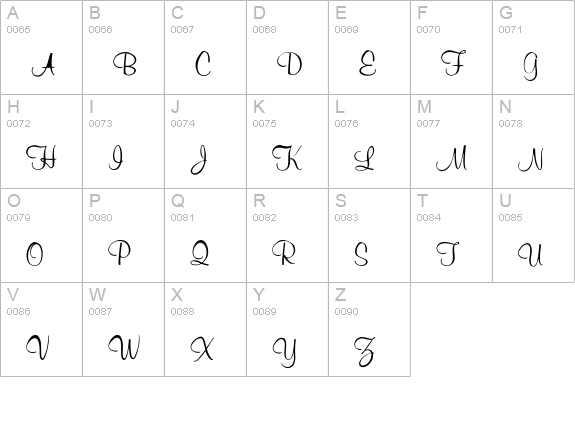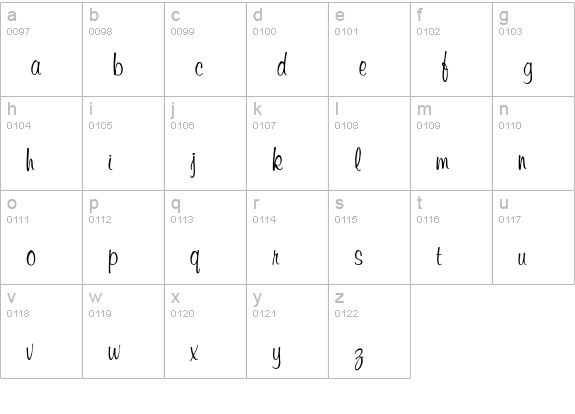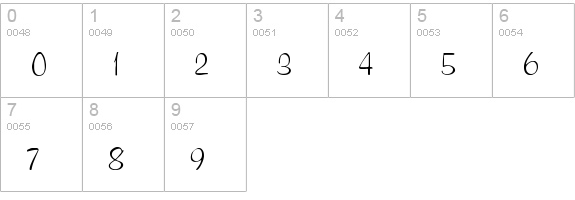
Muriel Font Details
Muriel font is a stunning and elegant typeface that exudes sophistication and charm. Its timeless design makes it perfect for a wide range of projects, from branding to editorial design. The fluid and graceful letterforms of Muriel font bring a touch of class to any text, making it a versatile choice for both print and digital applications. What sets Muriel font apart is that it is not only visually appealing but also freely available to download at FontsMarket.com. This means that you can easily access this beautiful typeface without any cost, making it a valuable addition to your font library. Whether you're a designer looking for a new go-to font or a business owner in need of a stylish branding solution, Muriel font is sure to impress with its timeless beauty and accessibility.